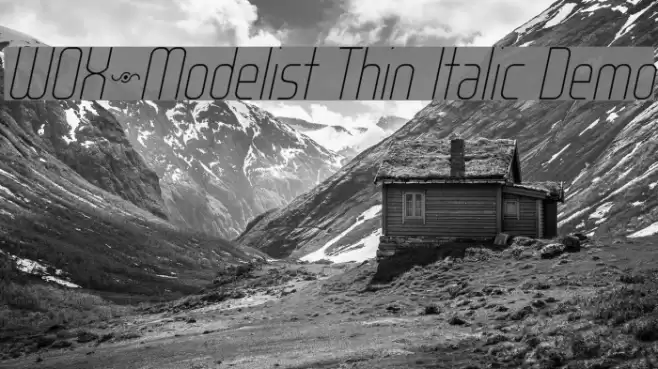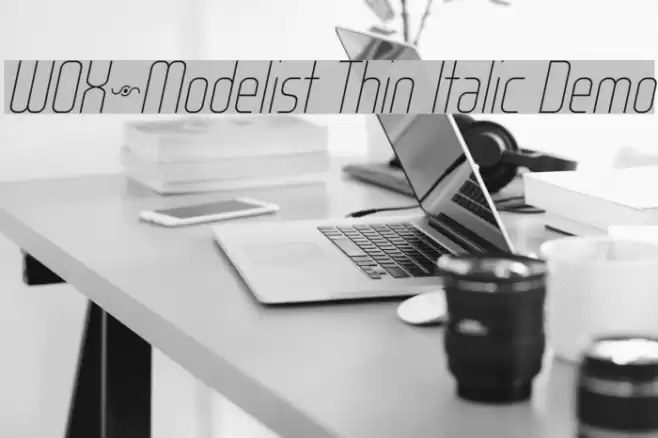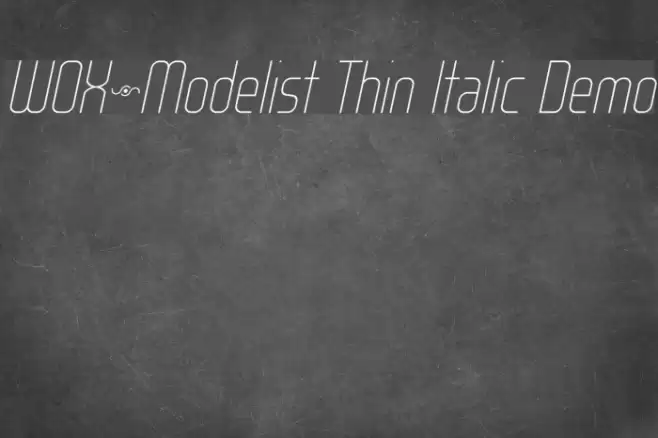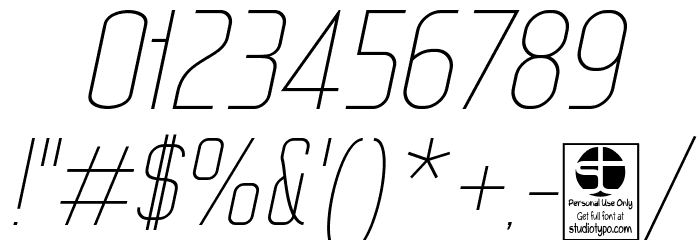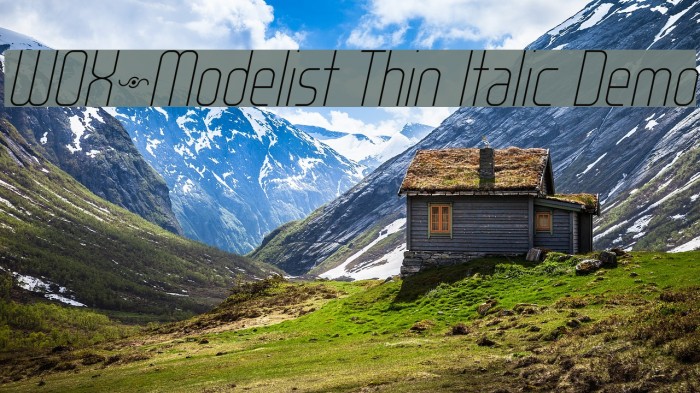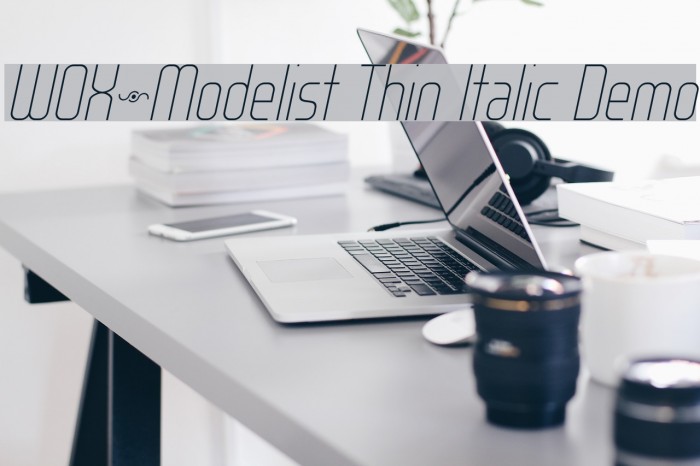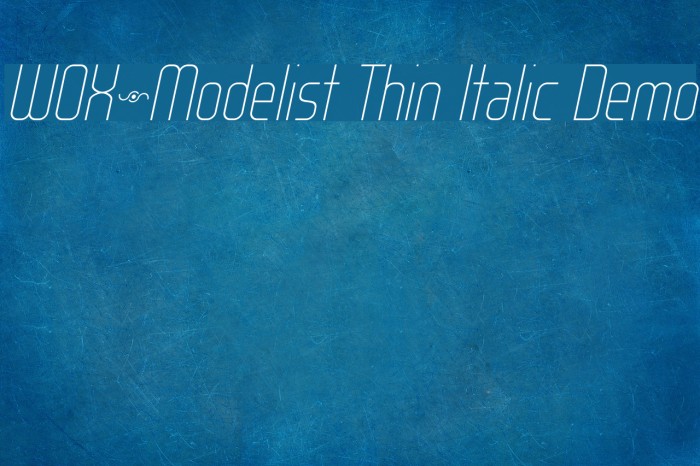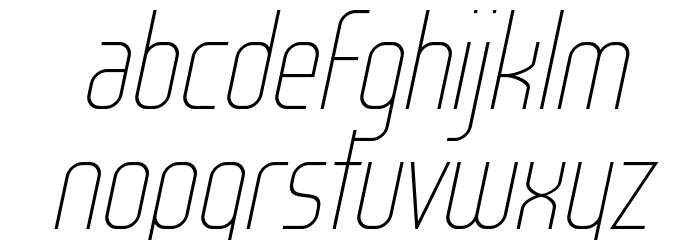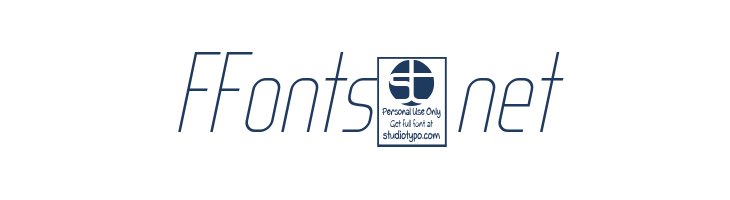
WOX~Modelist Thin Italic Demo Font
WOX~Modelist Thin Italic Demo Description
This font features a sleek, modern design with a thin, italicized style that emphasizes elegance and sophistication. The characters are elongated with a slight slant, giving them a dynamic and forward-moving appearance. The uppercase and lowercase letters maintain a consistent height and width, contributing to a uniform look. The numerals are distinct and easily readable, while the special characters are crafted to match the overall aesthetic. This font's minimalistic design makes it versatile for various applications, offering a contemporary feel that is both stylish and functional.
A sleek, thin, italicized font with a modern and elegant design from Uncategorized fonts.
- Proposed Projects: Ideal for fashion magazines, modern branding, sleek product packaging, and contemporary web design.
- Use Case: Headlines, Logos, Branding